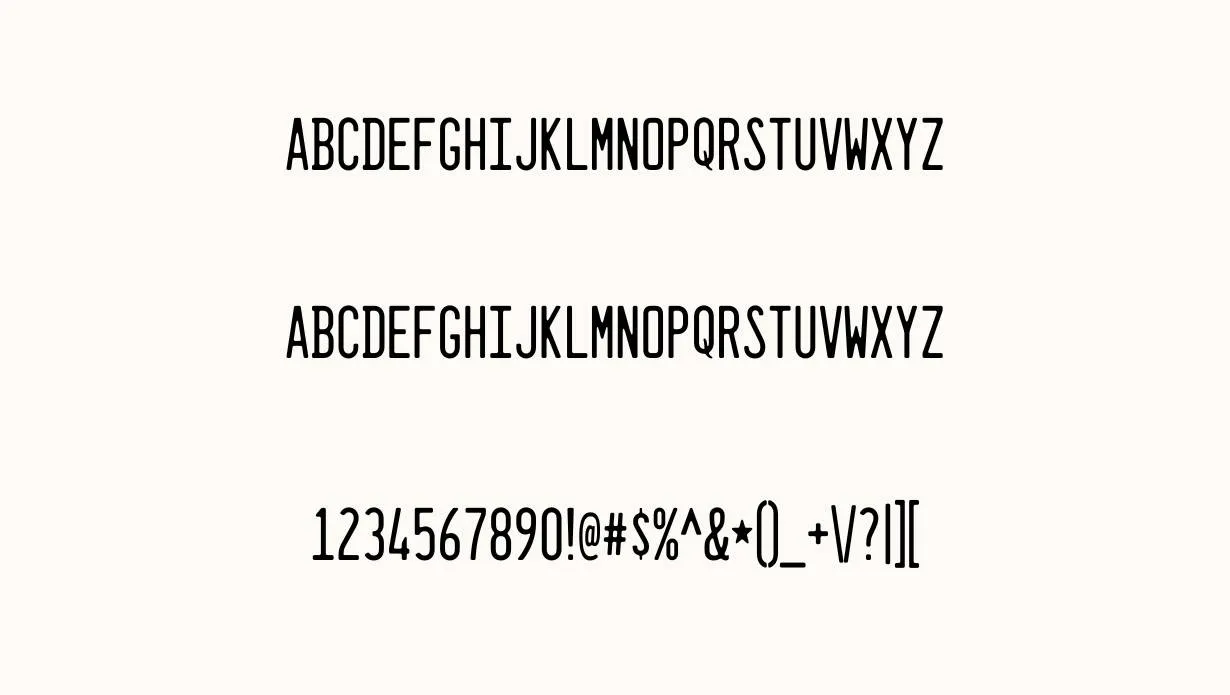
Dealerplate California Font is like a license plate for your words, adding a touch of vehicular flair. It’s as if your letters decided to hit the road and join a road trip. When you use Dealerplate California Font, your writing gets a bit of highway adventure.
It’s like the freedom of an open road, making your words feel on-the-go and full of excitement. Pick Dealerplate California Font when you want your writing to have the cool vibe of a cross-country drive.
| Name | Dealerplate California Font |
| Designer | Typodermic Fonts |